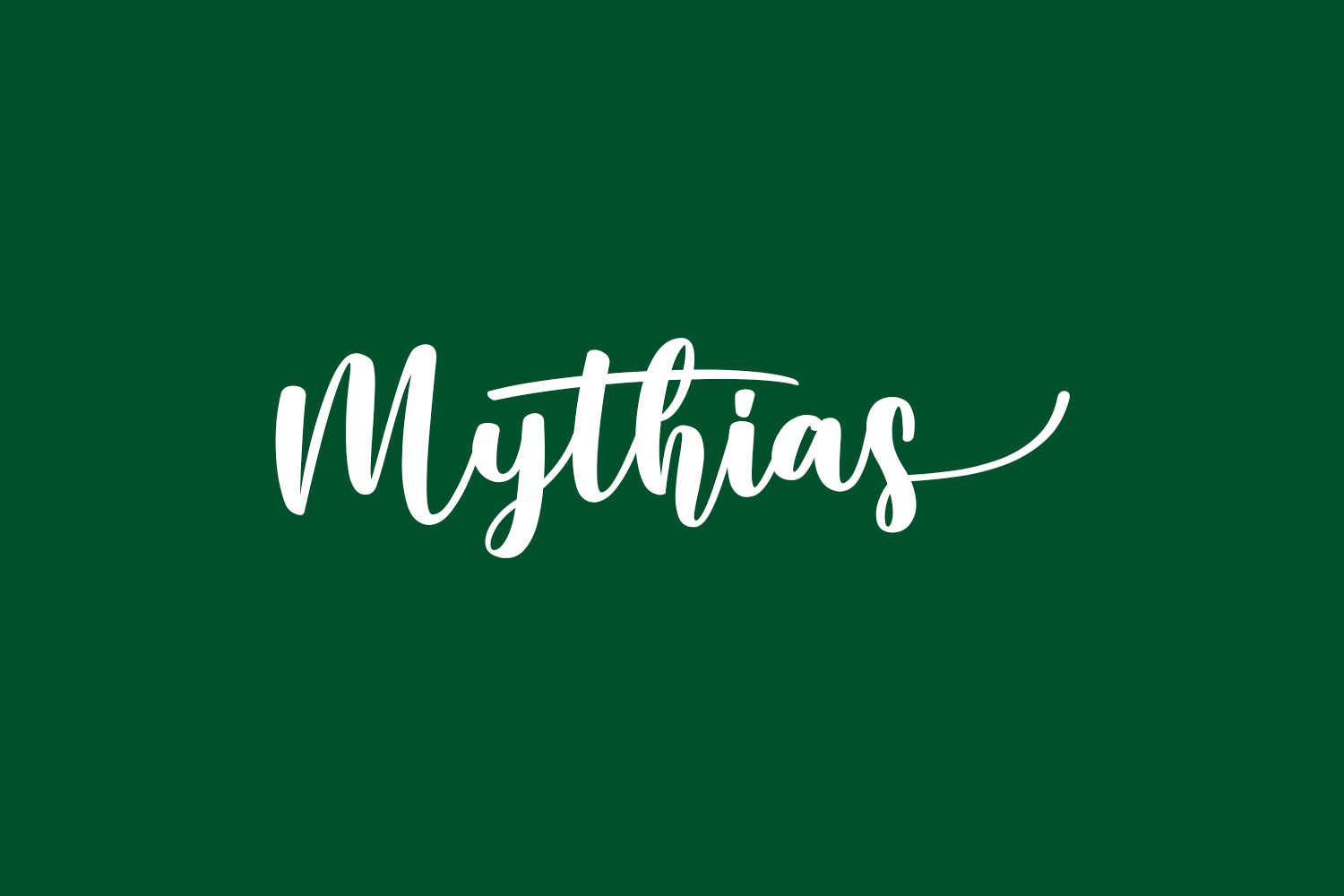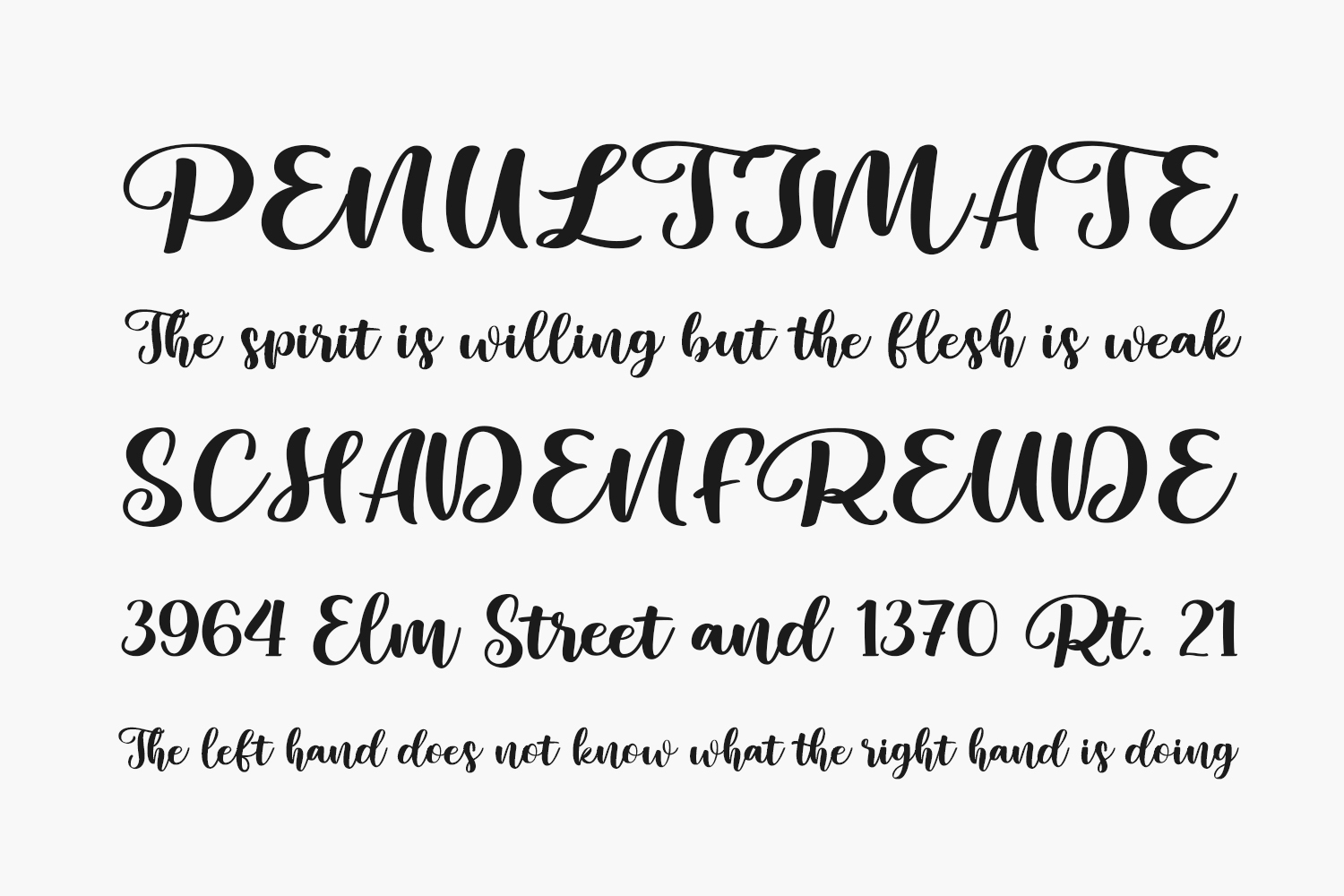
Mythias Free Font is a romantic and sweet calligraphy typeface with characters that dance along the baseline. It will add a luxury spark to any design project that you wish to create. Mythias Free Font was designed by Madatype Studio and is free for personal use only. Please purchase the full version for commercial use.